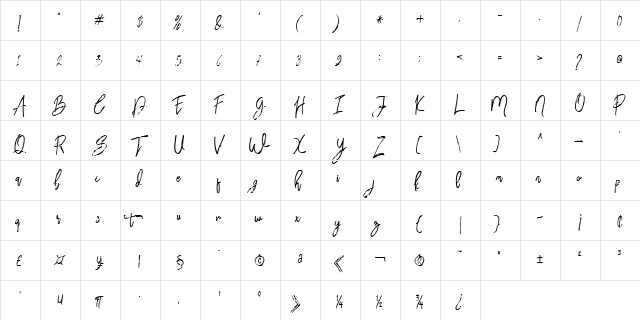
Bloomy Script Free Regular
Design Context for Bloomy Script Free Typeface
Bloomy Script Free flows with the natural rhythm of handwritten lettering, making it ideal for designs that call for warmth and personal expression.
Font Pairing: Combine Bloomy Script Free with a simple geometric sans for maximum contrast — the tension between flowing curves and clean structure is a classic typographic pairing.
Pro Tip: Use Bloomy Script Free for short runs of text — names, titles, or taglines. Extended body copy in script faces tires the eye quickly.